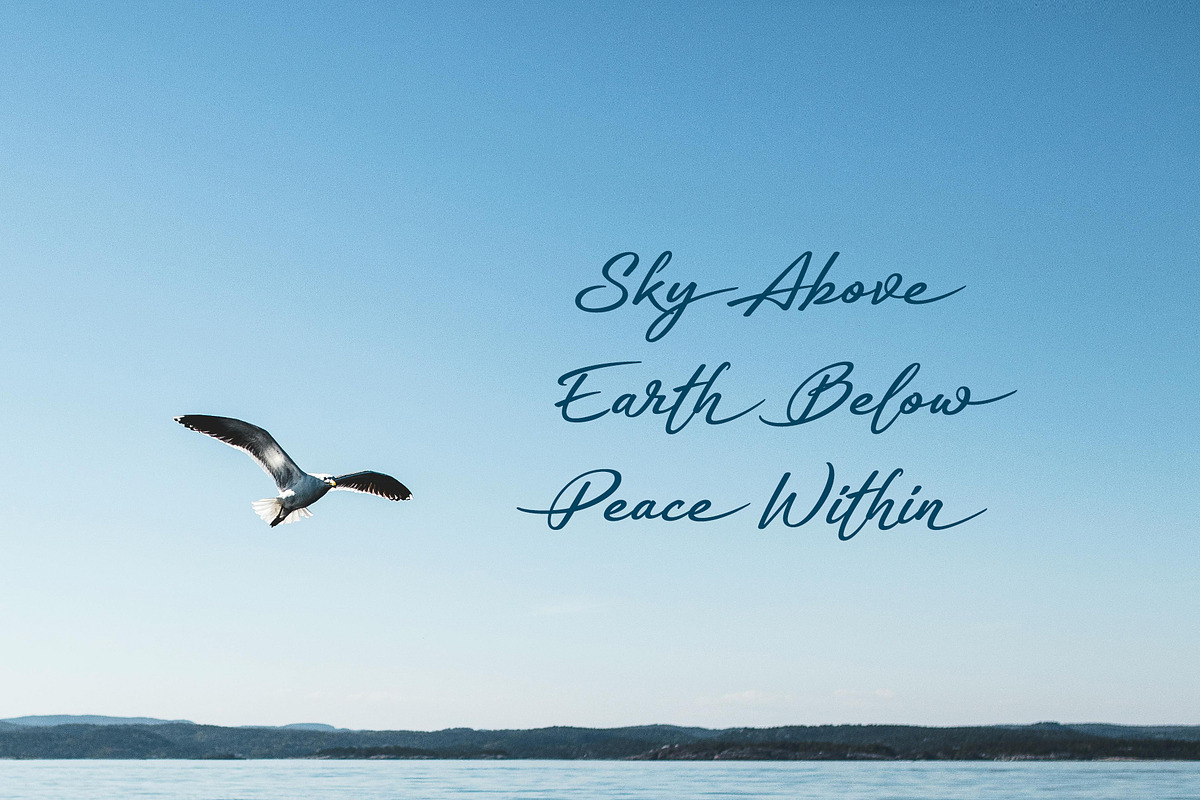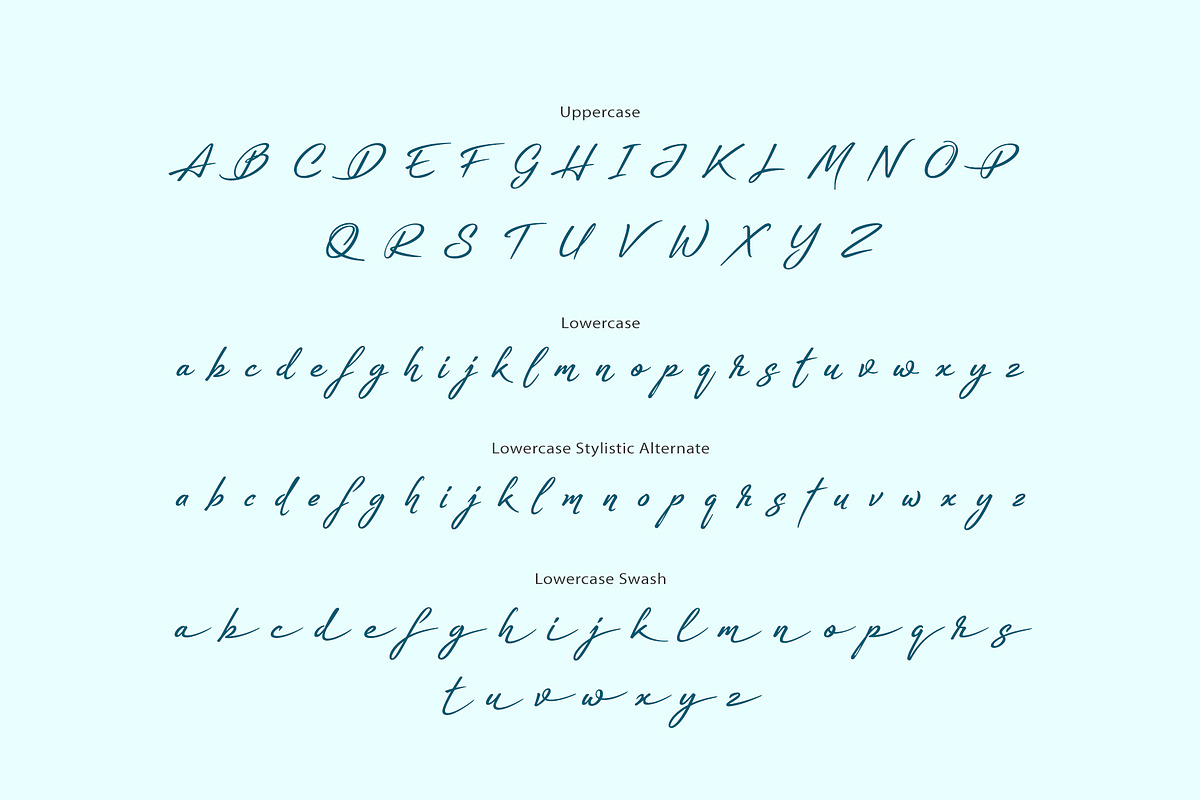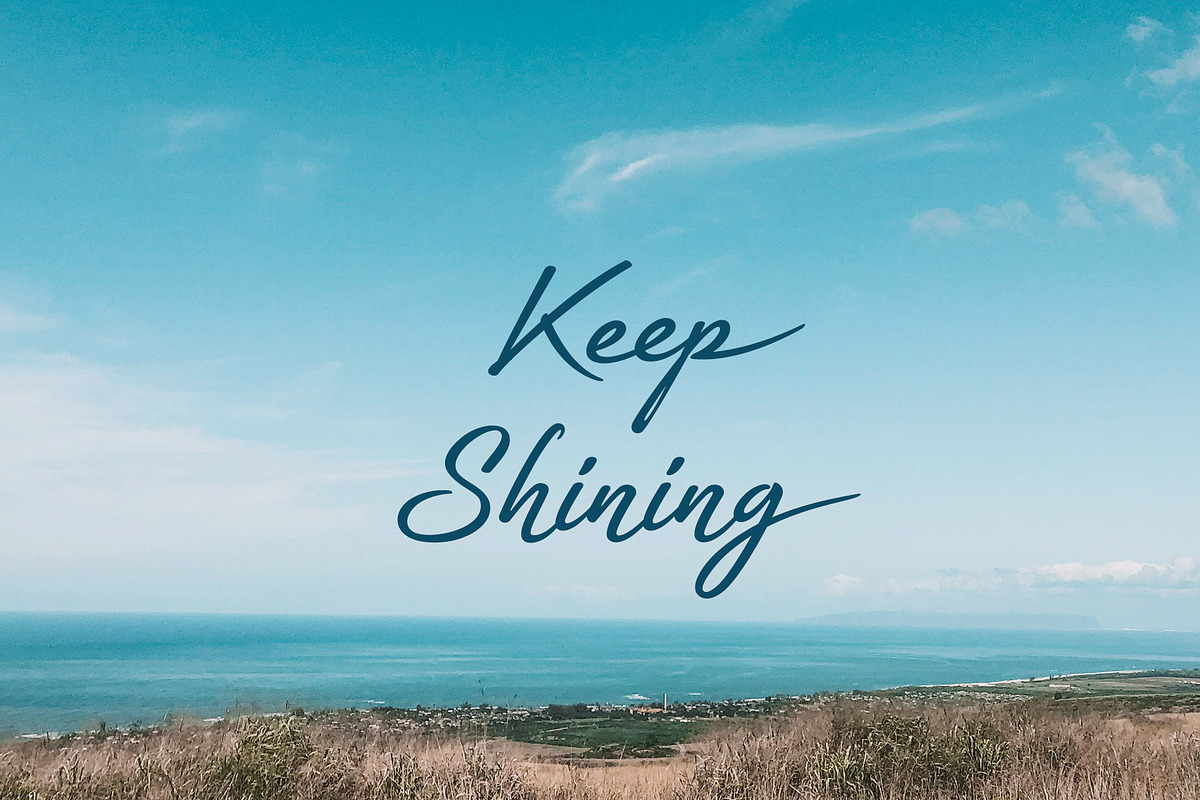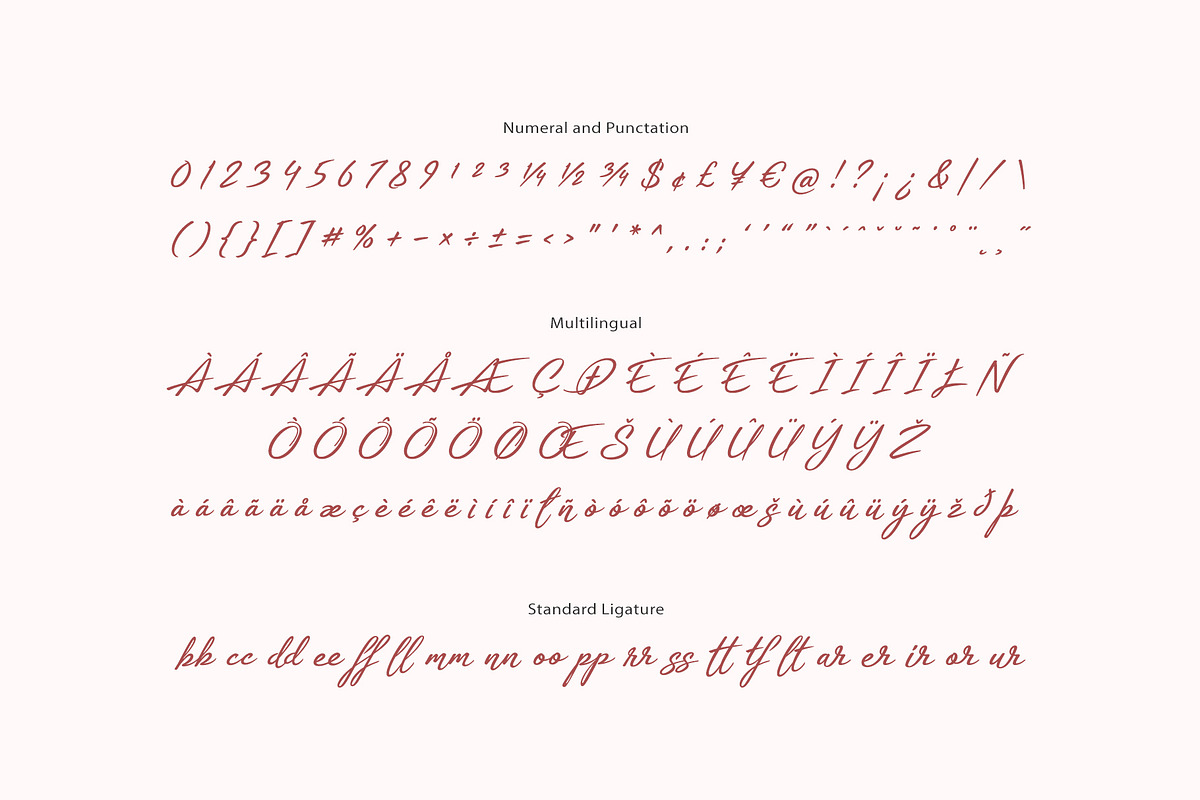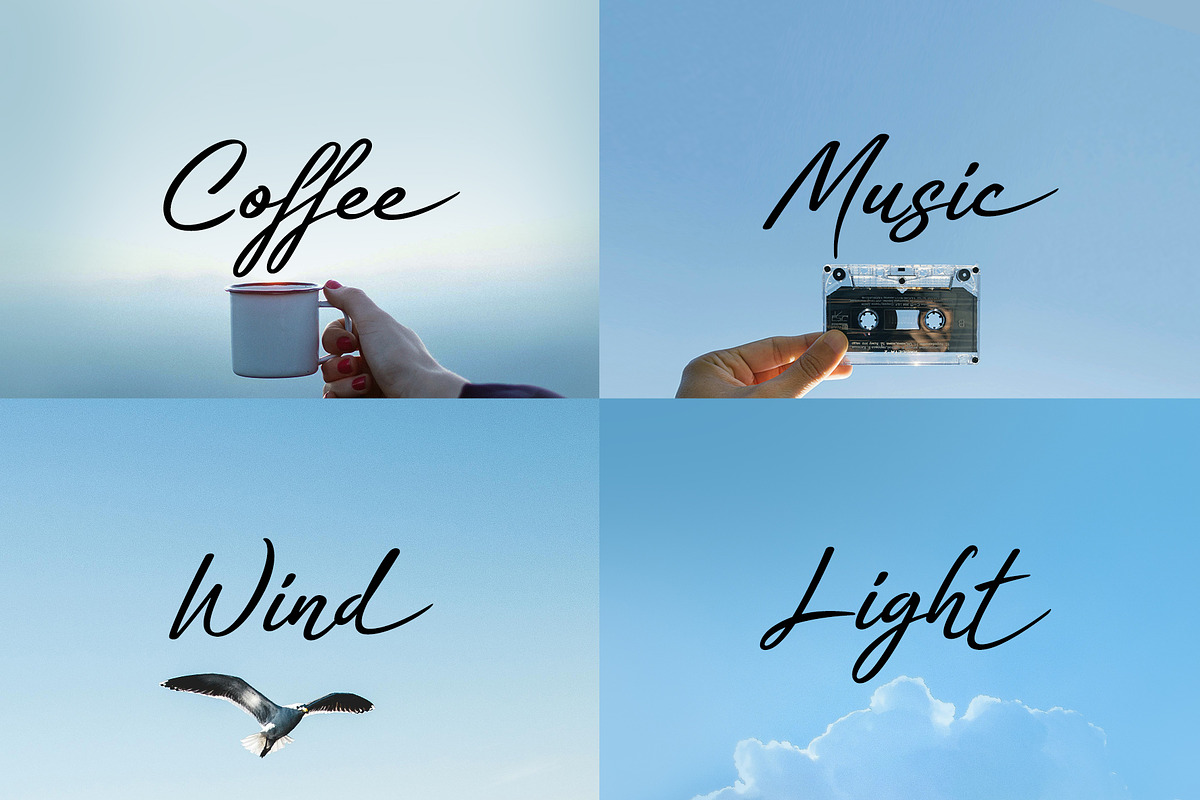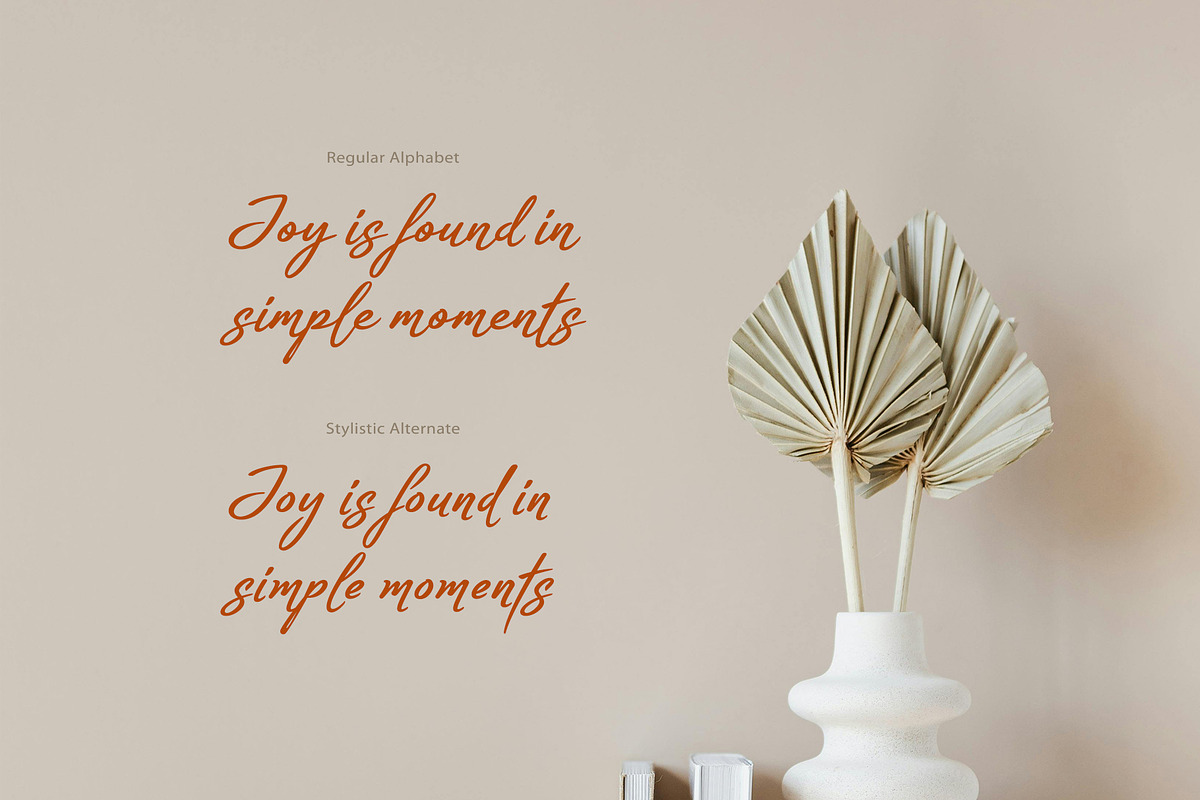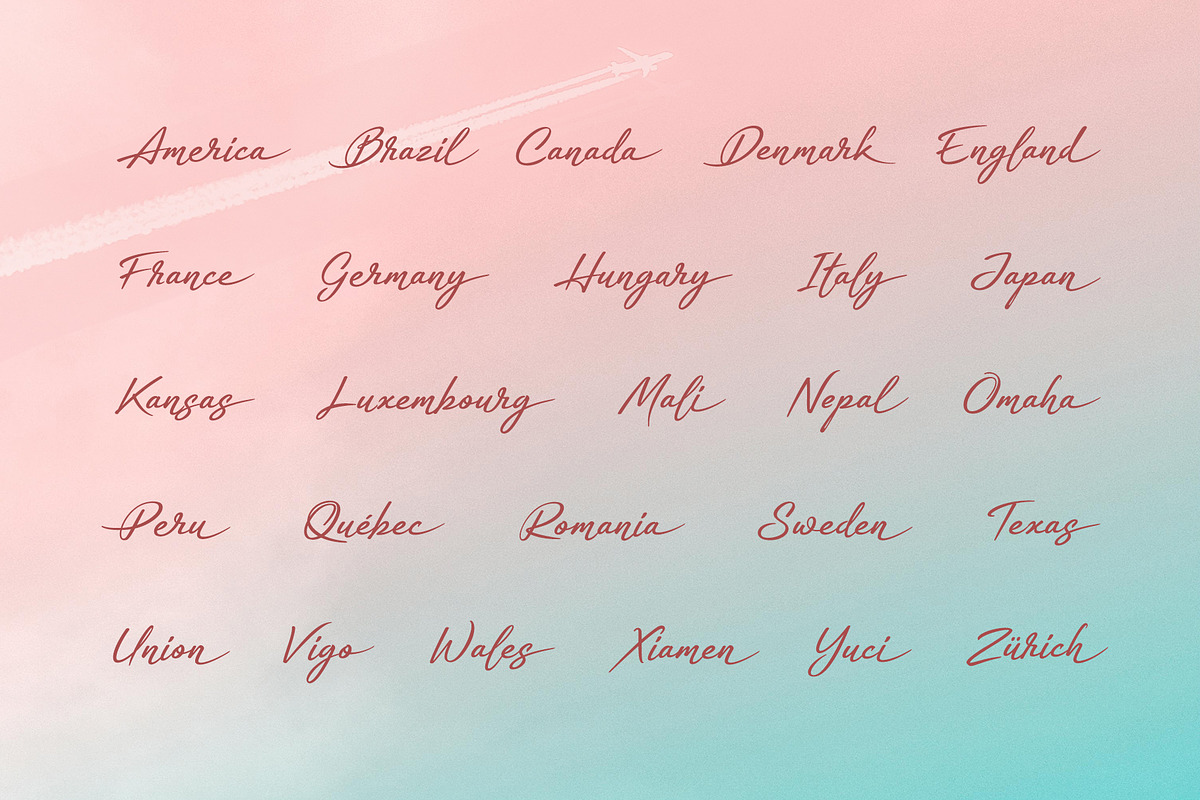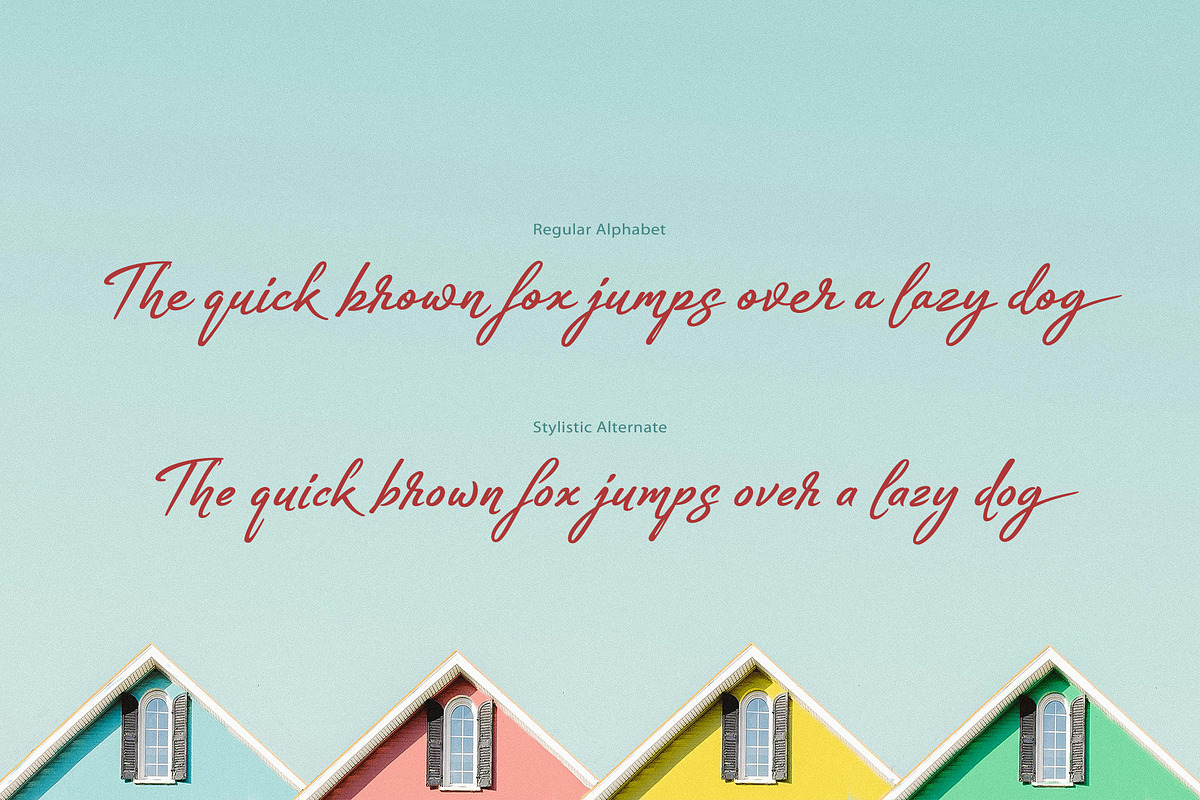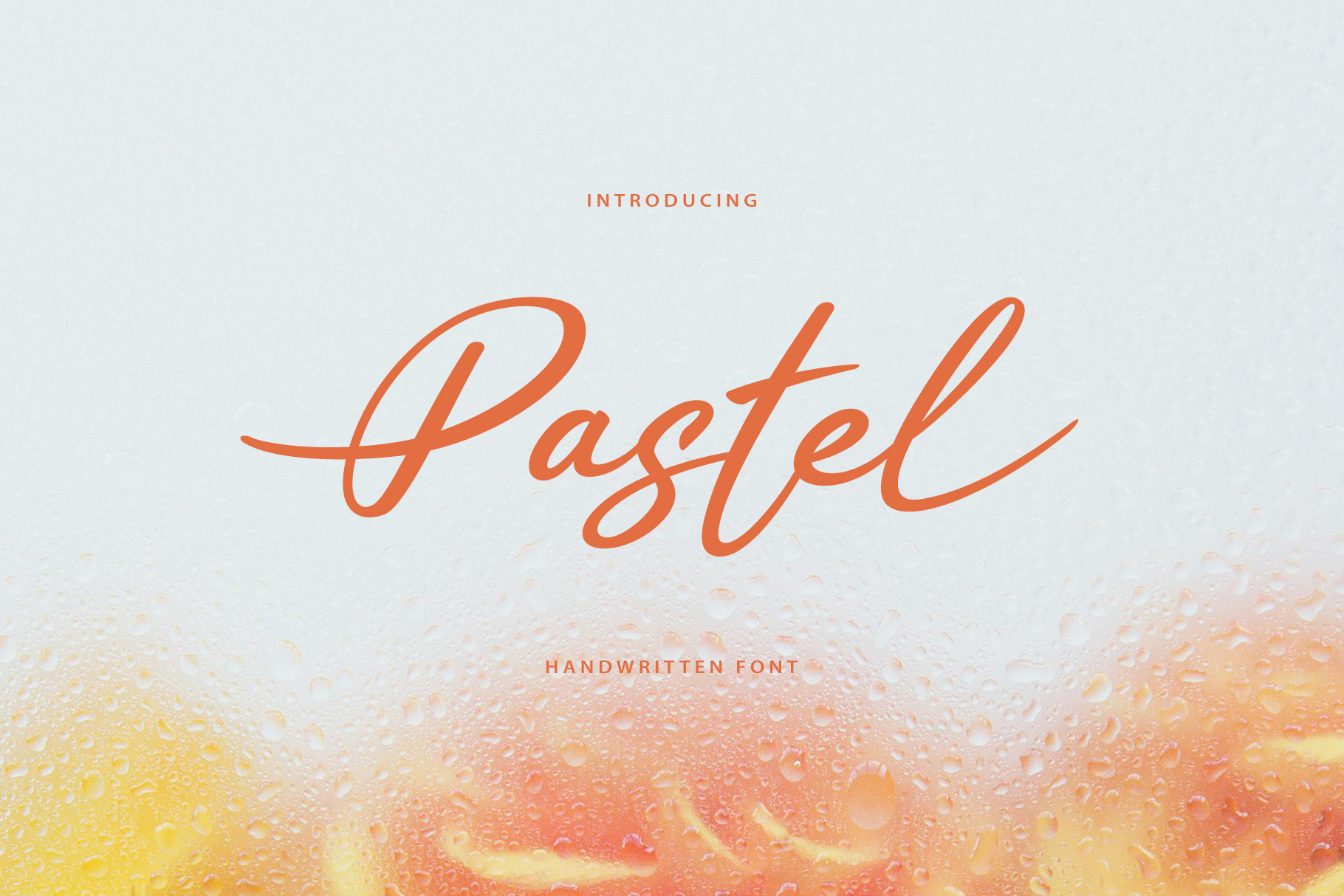
Pastel Handwritten Font
Pastel is a nice handwritten font. It gives a complete authentic feel on your text.
Total 270 glyphs available including alphabets, numerals, punctuation, ligature, lowercase stylistic alternaet, lowercase swash and multilingual characters.